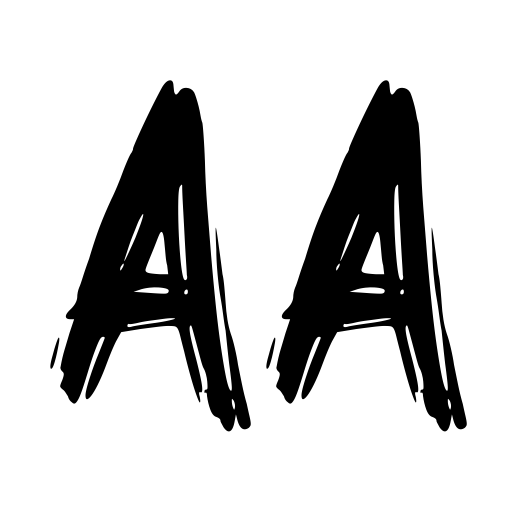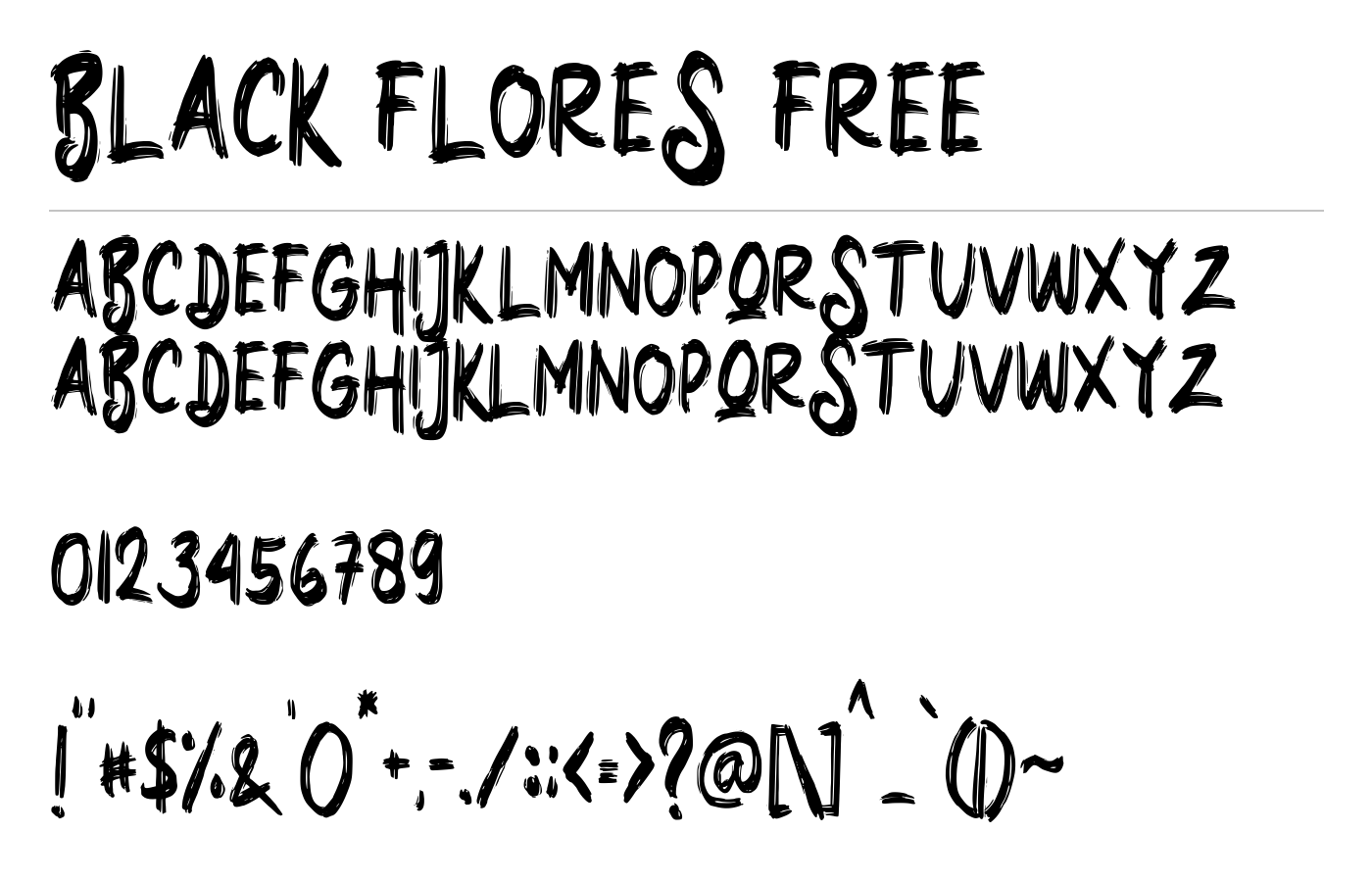
Black Flores FREE is a bold, hand-drawn sans serif font that combines playful energy with an organic, brush-like texture. Its uneven strokes and quirky letterforms create a lively and informal feel, making it ideal for creative projects, casual branding, and eye-catching headlines where a personal, artistic touch is desired.
Black Flores FREE Font
About Black Flores FREE Font